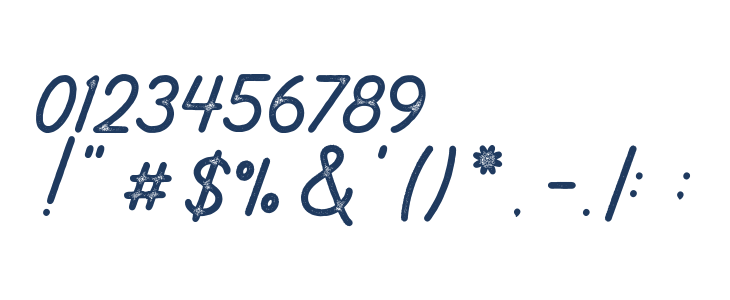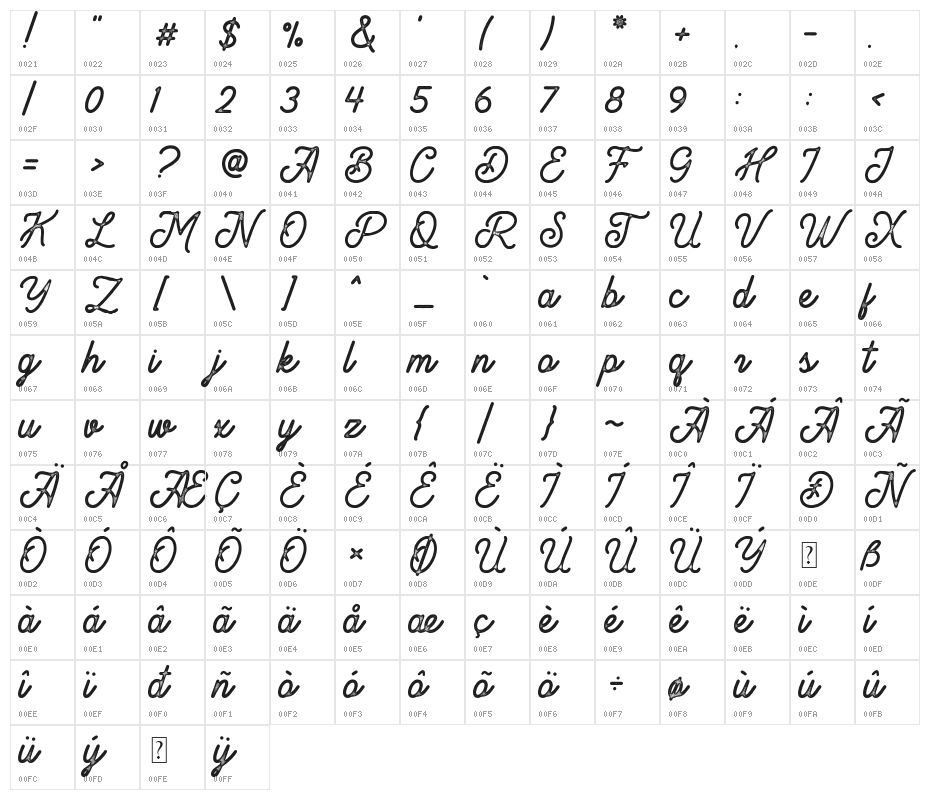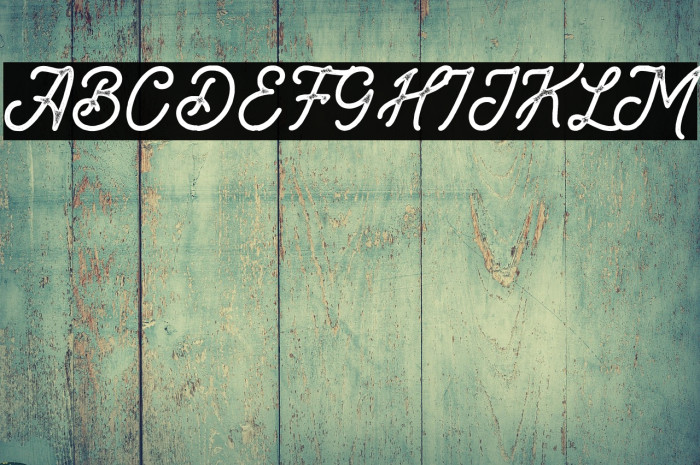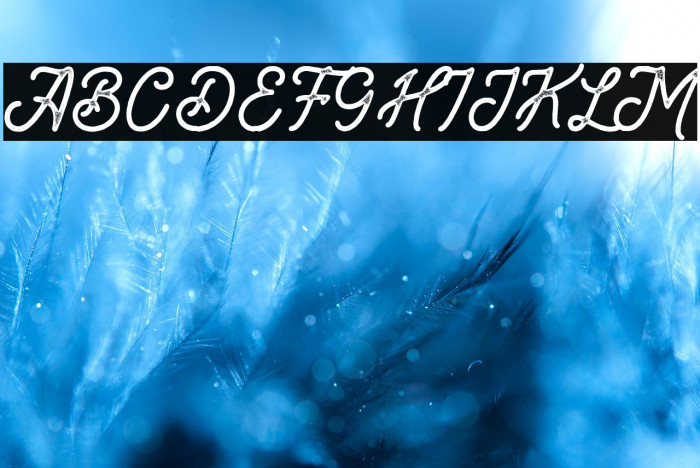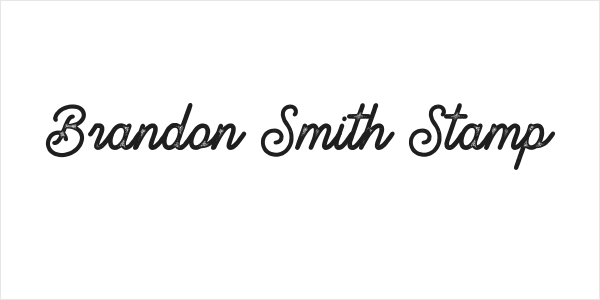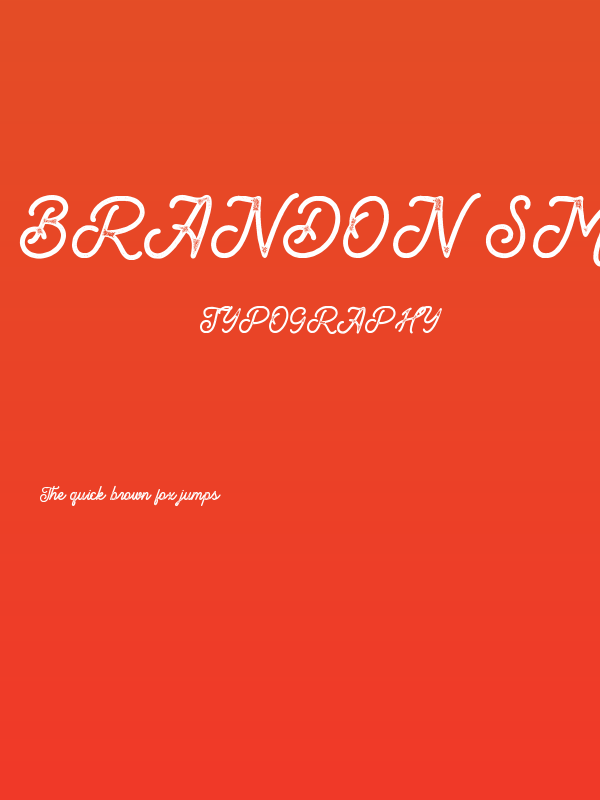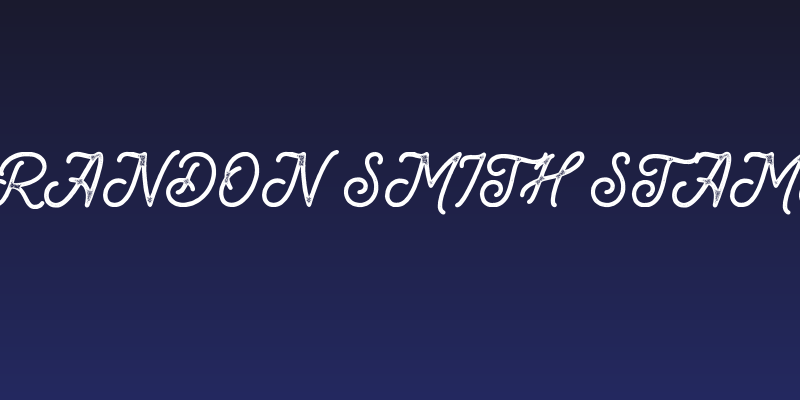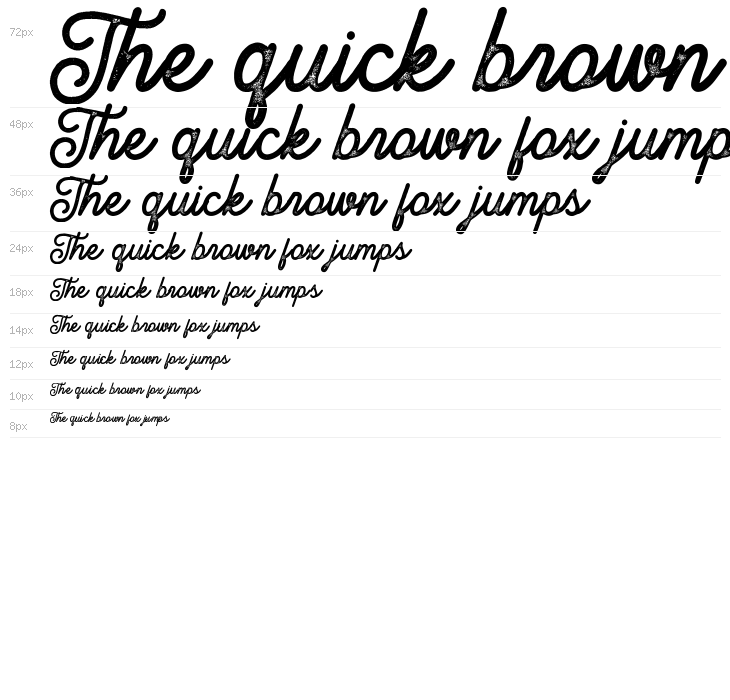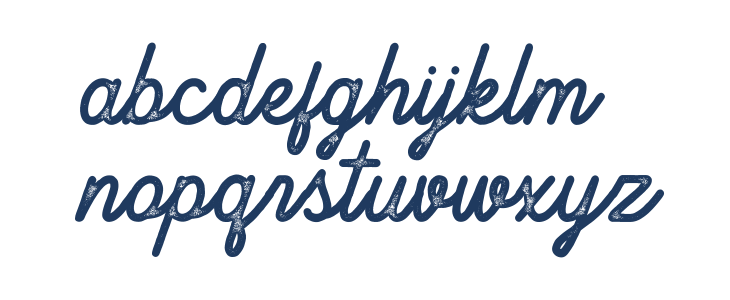
Brandon Smith Stamp Font
Brandon Smith Stamp Description
This font features a distinctive, vintage script style with a textured, stamp-like appearance. The uppercase letters are elegantly crafted with flowing curves and loops, while the lowercase letters maintain a consistent, cursive style that complements the uppercase. The numbers and special characters are designed with the same textured effect, adding to the overall rustic charm. This font's unique texture gives it a handcrafted feel, making it ideal for projects that require a personal touch. The balance between the bold strokes and the intricate details creates a visually appealing contrast, enhancing its readability despite the decorative elements.
| Proposed Projects | Ideal for branding, packaging, invitations, and any design project that seeks a vintage or handcrafted aesthetic. |